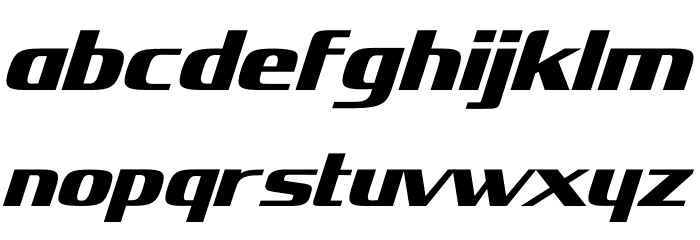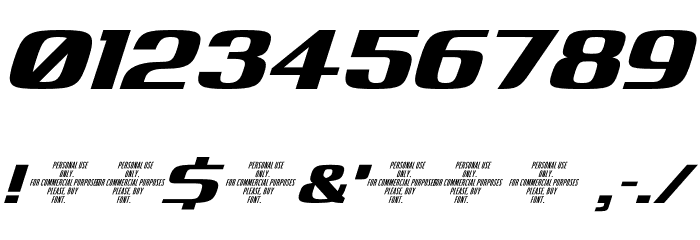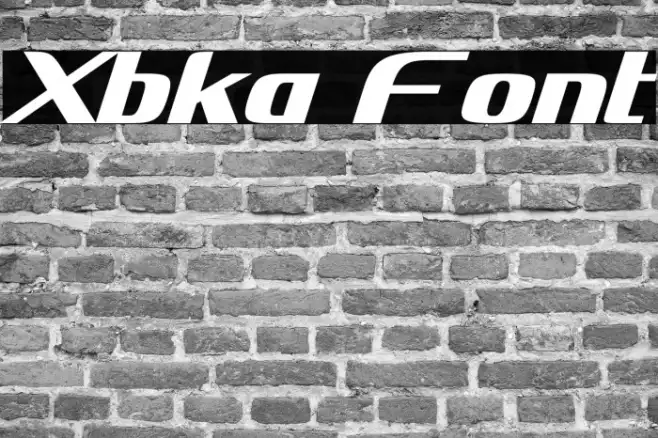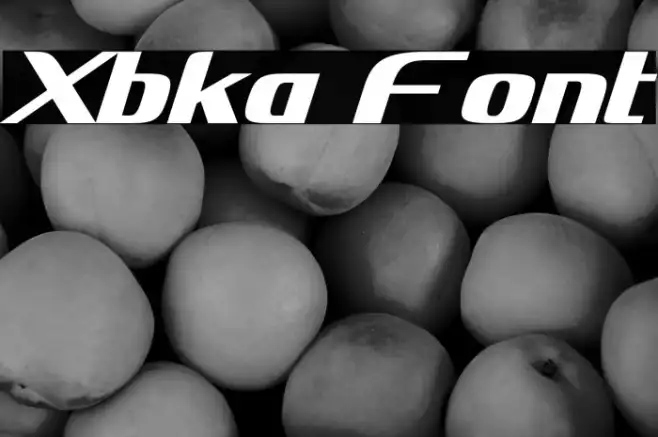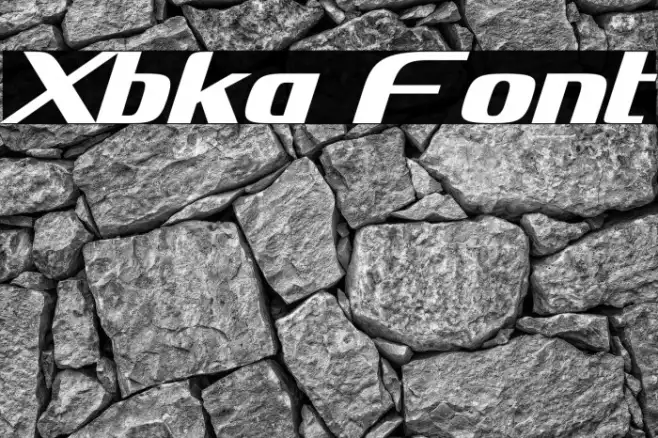
Xbka Font
This font exhibits a dynamic and modern style with a strong emphasis on speed and movement. The characters are slightly italicized, giving them a forward-leaning appearance that suggests motion. The strokes are bold and consistent, providing a sense of strength and confidence. The uppercase and lowercase letters maintain a uniform width, while the numbers and special characters are designed to complement the overall aesthetic. This font is well-suited for projects that require a contemporary and energetic feel.
- Proposed Projects: Ideal for sports branding, automotive advertisements, and dynamic logo designs.